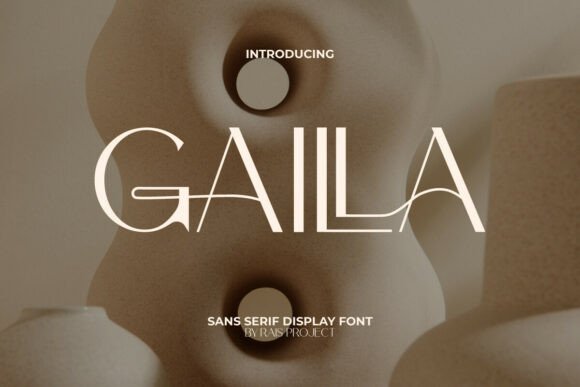
Gailla Font: Elevate Your Designs with Luxurious Sans Serif Elegance
Gailla Font is a breathtaking sans serif display font that embodies luxury and sophistication. Its characters boast a minimalist yet opulent style, making it an ideal choice for designers seeking to add a touch of elegance to their creations. One of the standout features of Gailla Font is its Ligature characters, which can be effortlessly accessed thanks to PUA encoding. This font is incredibly versatile and can be used across various industries and design applications.
Key Features of Gailla Font
- Luxurious and Minimalist Design: Gailla Font’s characters are crafted with a focus on simplicity and luxury, providing an attractive appearance that can elevate any design.
- Ligature Characters: The font includes Ligature characters that can add a unique touch to your designs, making them more visually appealing.
- PUA Encoding: With PUA encoding, accessing all alternates and flourishes is straightforward, eliminating the need for specialized design tools.
- Versatile: Gailla Font is suitable for a wide range of design applications, including brand image, custom design, flyers, invitations, labels, magazine covers, marketing materials, menus, posters, product packaging, quotes, signage, stationery, and website pages.
Industries That Can Benefit from Gailla Font
Gailla Font’s versatility extends across various industries, making it a valuable asset for:
- Accessories: Add a touch of luxury to your accessory branding and marketing materials.
- Advertising: Elevate your ad campaigns with a sophisticated and eye-catching font.
- Beauty Products: Gailla Font’s elegant style is perfect for beauty product branding, packaging, and marketing.
- Café and Restaurant: Create a luxurious ambiance with Gailla Font in your café or restaurant’s branding, menus, and promotional materials.
- Crafting and Event Organizing: Add a personal touch to your crafting or event organizing business with Gailla Font’s unique Ligature characters.
- Fashion: Gailla Font is ideal for fashion brands seeking to convey luxury, sophistication, and style.
- Home Furniture: Elevate your home furniture branding and marketing materials with a touch of elegance.
- Jewelry: Showcase your jewelry pieces with Gailla Font’s luxurious and sophisticated style.
- Marketing and Movie: Gailla Font can add a touch of glamour to your marketing campaigns and movie promotions.
- Printing and Publishing: Enhance your printing and publishing projects with Gailla Font’s elegant and refined style.
- Real Estate: Create a luxurious impression with Gailla Font in your real estate branding and marketing materials.
- Spa and Salon: Gailla Font’s soothing and elegant style is perfect for spa and salon branding, menus, and promotional materials.
Design Applications for Gailla Font
Gailla Font’s versatility makes it suitable for a wide range of design applications, including:
- Brand Image: Establish a luxurious brand image with Gailla Font.
- Custom Design: Create unique and personalized designs with Gailla Font’s Ligature characters.
- Flyers and Invitations: Make a lasting impression with Gailla Font’s elegant style in your flyers and invitations.
- Labels and Packaging: Elevate your product labels and packaging with Gailla Font’s luxurious style.
- Magazine Covers: Create eye-catching magazine covers with Gailla Font.
- Marketing Materials: Enhance your marketing materials, such as brochures, catalogs, and banners, with Gailla Font.
- Menus: Add a touch of luxury to your restaurant or café menus with Gailla Font.
- Posters: Create striking posters with Gailla Font’s elegant style.
- Product Packaging: Elevate your product packaging with Gailla Font’s luxurious style.
- Quotes and Signage: Make a lasting impression with Gailla Font’s elegant style in your quotes and signage.
- Stationery: Enhance your stationery, such as letterheads, business cards, and envelopes, with Gailla Font.
- Website Pages: Create a luxurious online presence with Gailla Font.
Tips and Benefits of Using Gailla Font
Gailla Font offers several benefits and tips for designers:
- Elevate Your Designs: Gailla Font’s luxurious style can instantly elevate your designs and add a touch of sophistication.
- Stand Out: Gailla Font’s unique Ligature characters can help your designs stand out from the crowd.
- Versatility: Gailla Font’s versatility makes it suitable for various design applications and industries.
- Easy to Use: Gailla Font is easy to use, thanks to PUA encoding, which allows for effortless access to alternates and flourishes.
Gailla Font is a stunning sans serif display font that offers a luxurious and sophisticated style, making it perfect for designers seeking to add a touch of elegance to their creations. Its versatility, ease of use, and unique Ligature characters make it an excellent choice for various design applications and industries. With Gailla Font, you can elevate your designs, stand out from the crowd, and create a lasting impression.